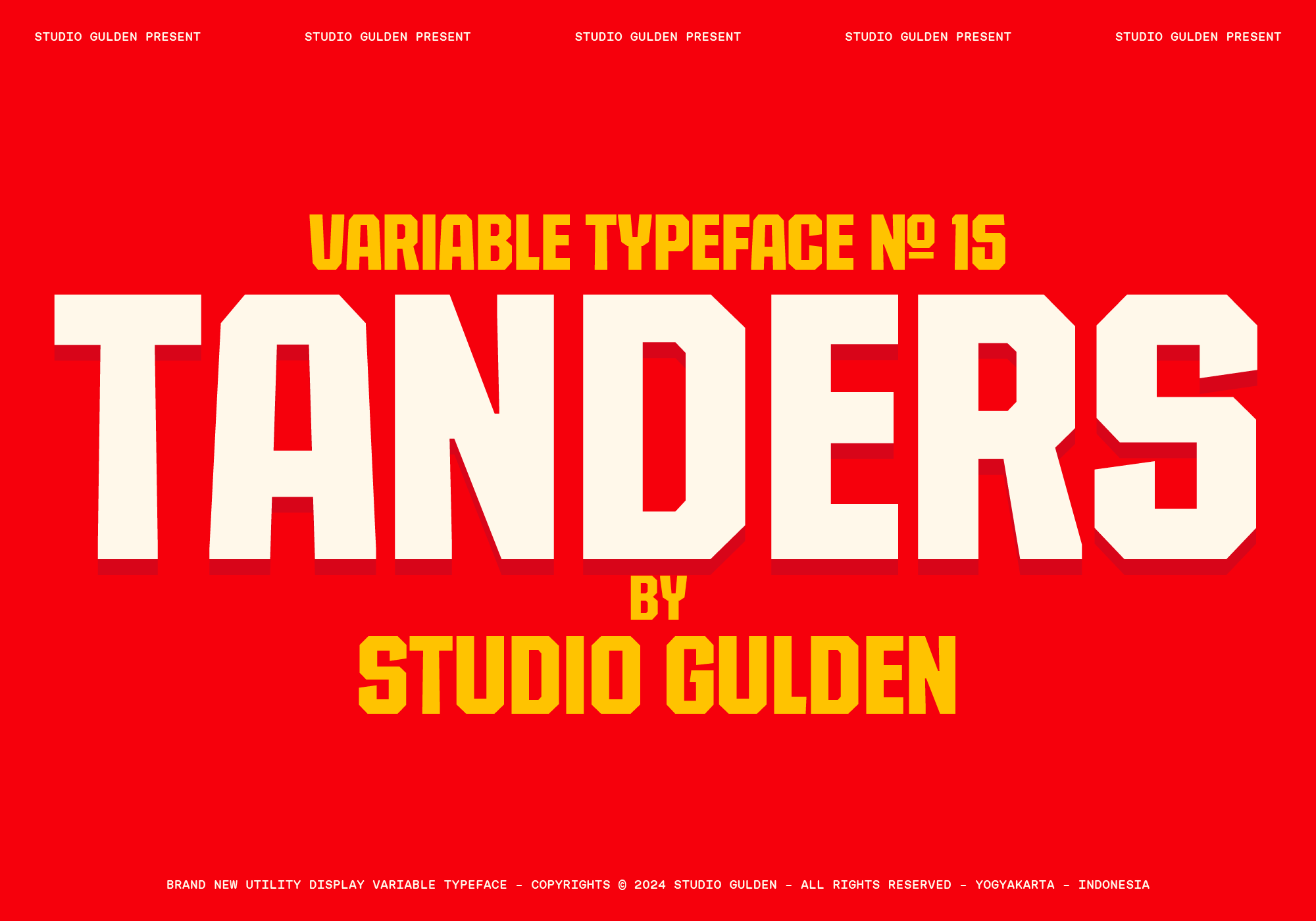
SG Tanders Superfamily - 72 Fonts
SG Tanders is a modern display typeface that crackles with bold energy. Its chunky, block-like characters possess a powerful presence, ideal for grabbing attention and making a lasting impression.
This isn't just another one-trick pony. SG Tanders boasts impressive versatility thanks to its variable nature. With 72 unique styles, you can tailor the font's impact to your specific design needs. Choose from condensed and narrow options for a dominant, space-saving look, or opt for regular and wide styles for a more open and impactful presence.
SG Tanders doesn't stop at style options. An extensive character set of 1019 glyphs provides comprehensive language support and opens doors to creative possibilities. The clean lines and lack of serifs exude a contemporary feel, well-suited for brands seeking a strong and confident voice.
Overall, SG Tanders is a powerful and versatile tool for designers seeking to make a bold statement. Its extensive variable options, comprehensive glyph set with uppercase, lowercase, and even multilingual diacritics, and undeniable presence make it a valuable addition to any design toolbox.